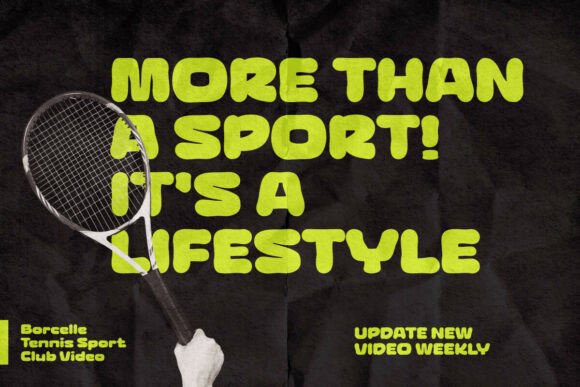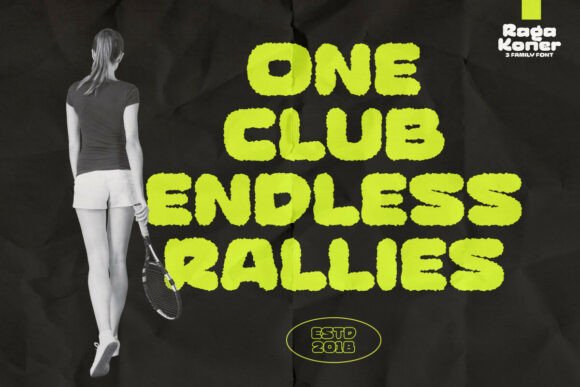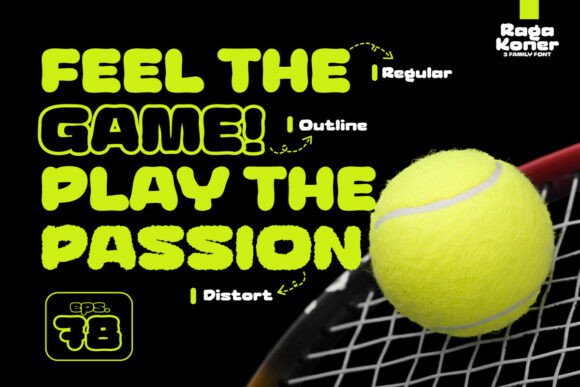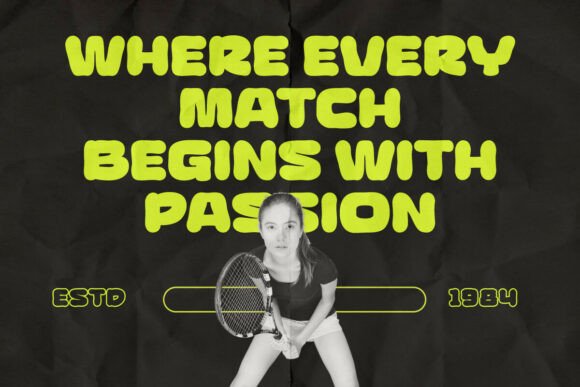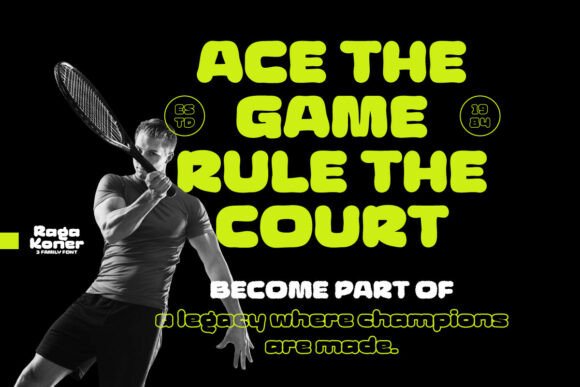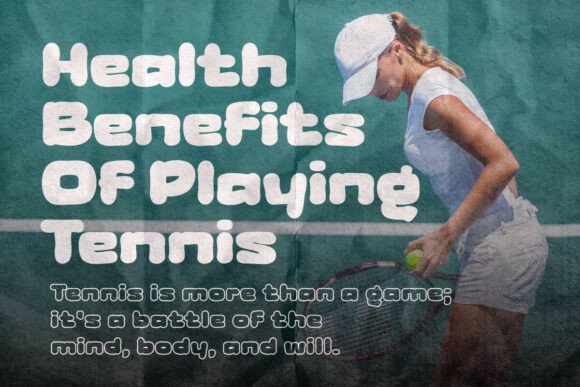
Introduction to Raga Koner Font
Raga Koner is a bold and vibrant display font born from the energy, agility, and spirit of tennis.
Its rounded, heavyweight letterforms and playful proportions echo the movement and excitement of the court, where every serve, volley, and swing carries both strength and grace The smooth curves radiate warmth, while the solid structure ensures a commanding presence, making it a perfect choice for designs that demand attention and deliver impact.
Key Features of Raga Koner Font
Why Choose Raga Koner Font?